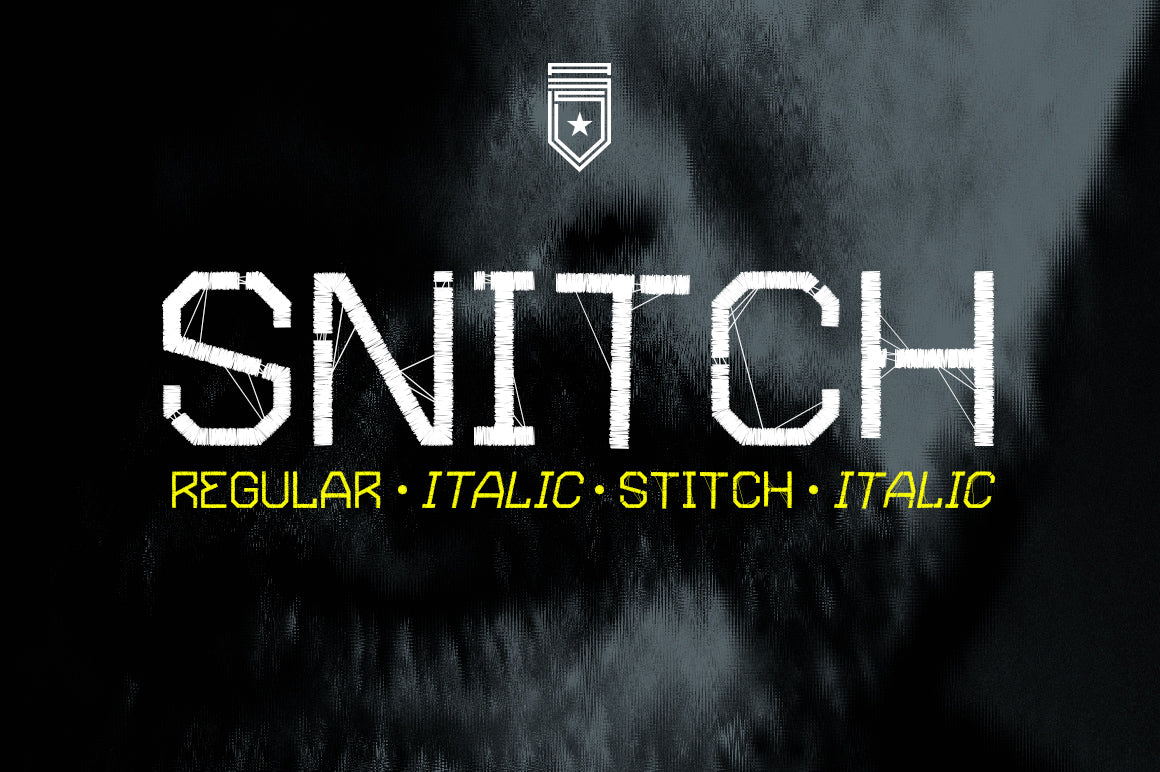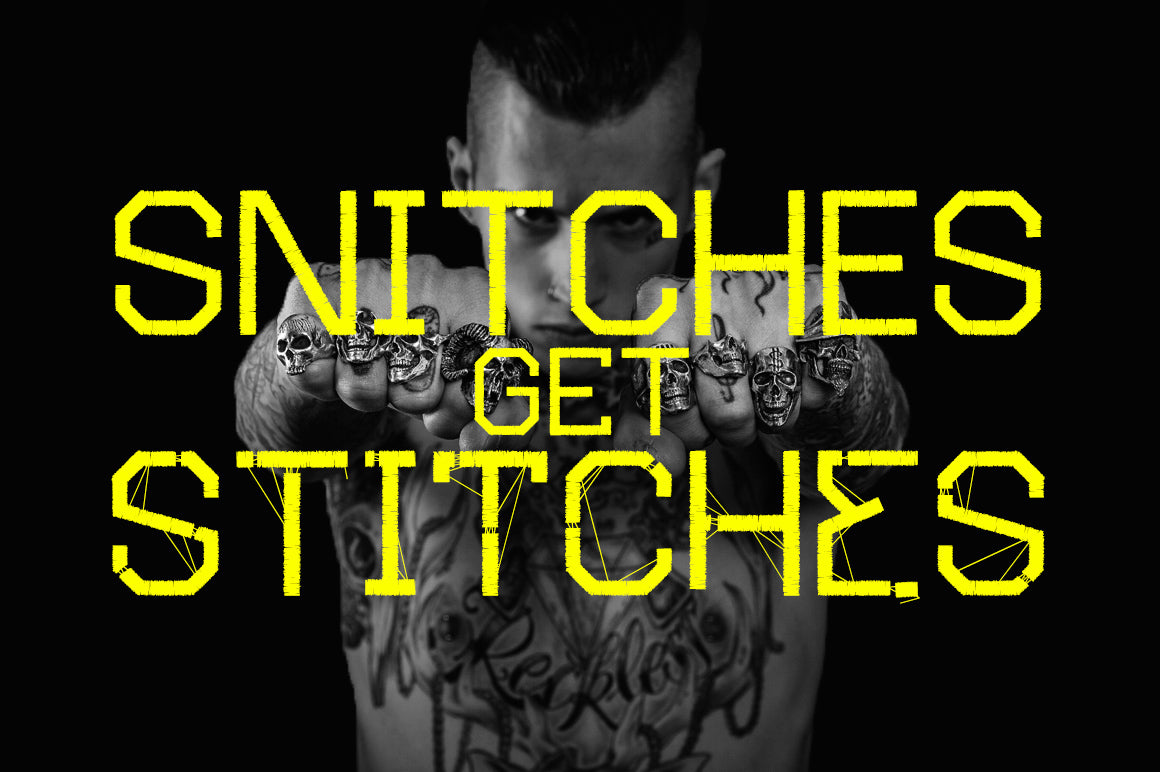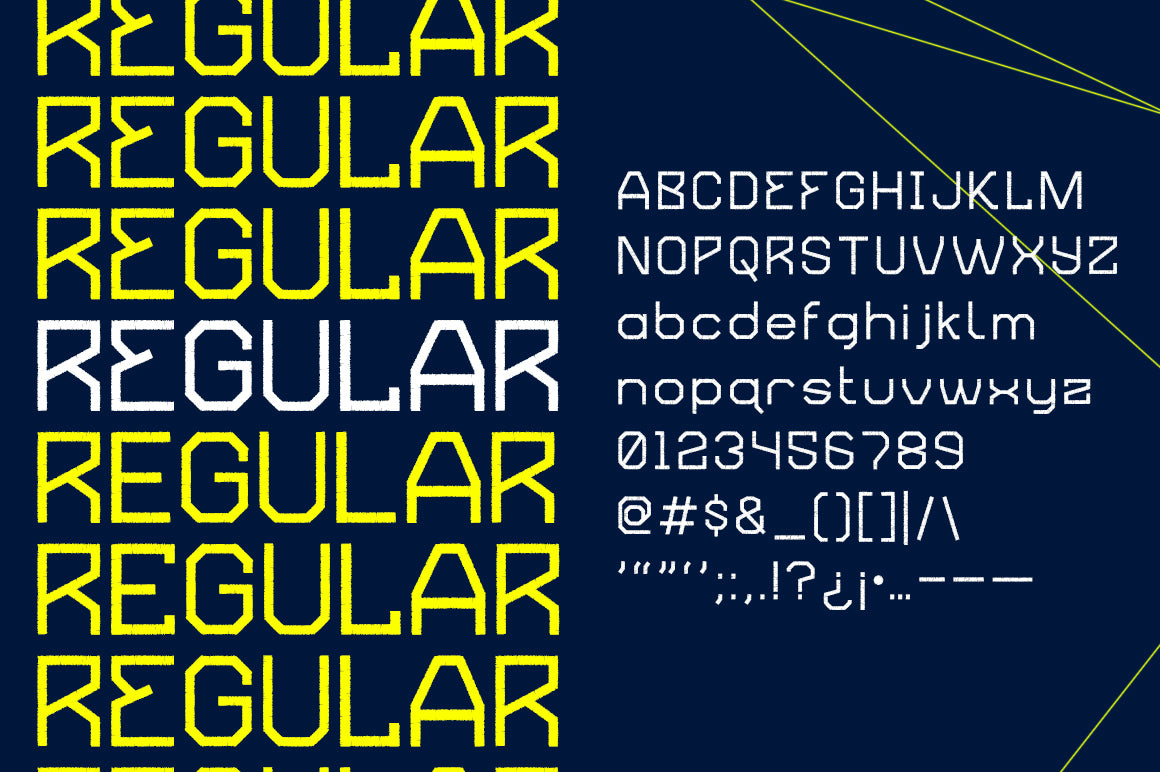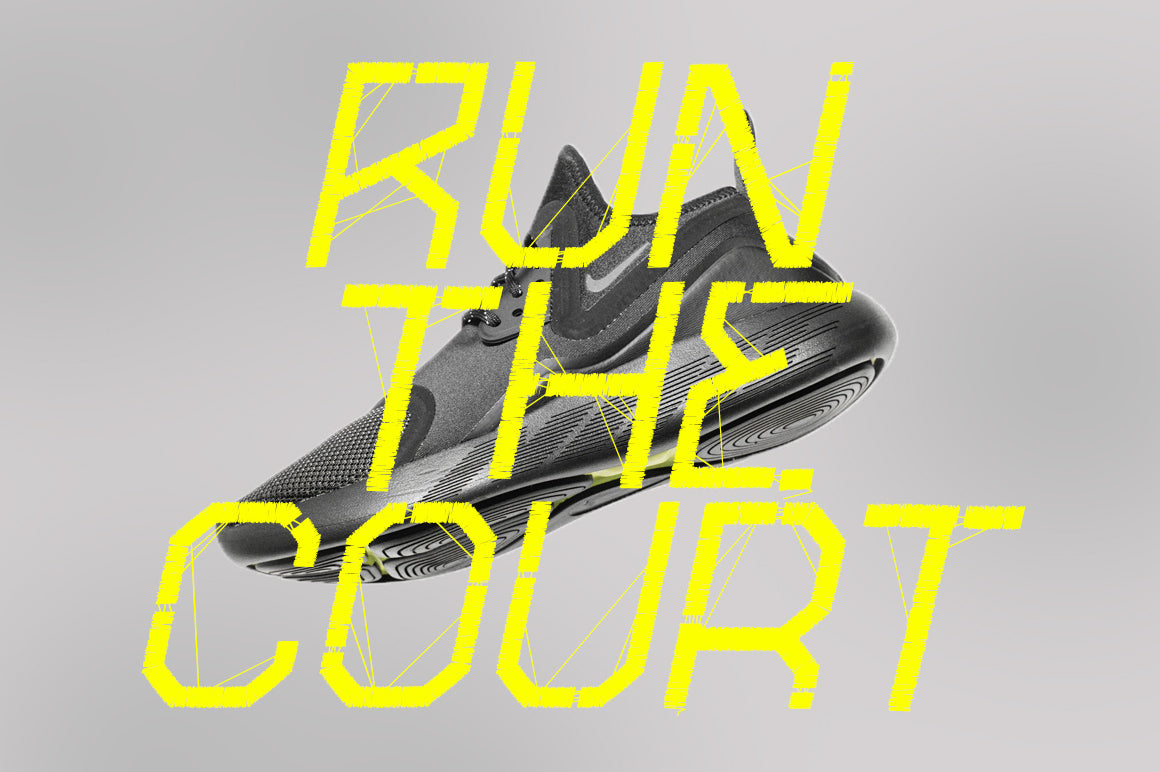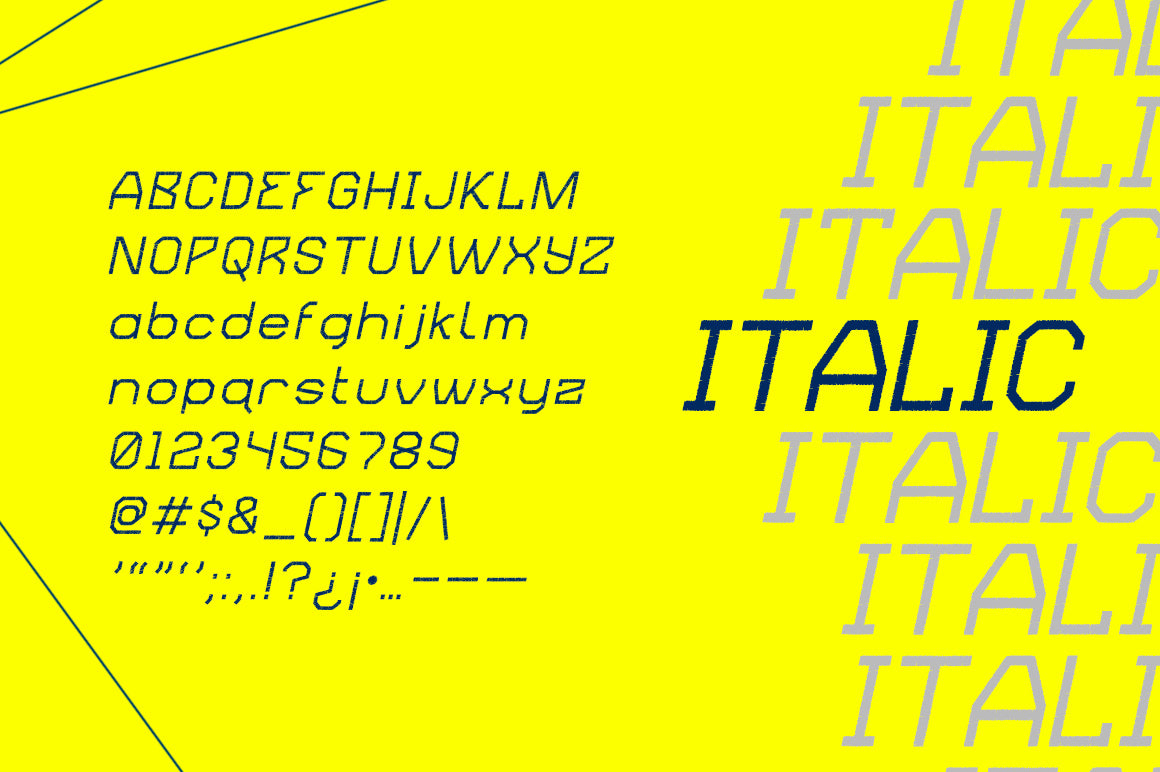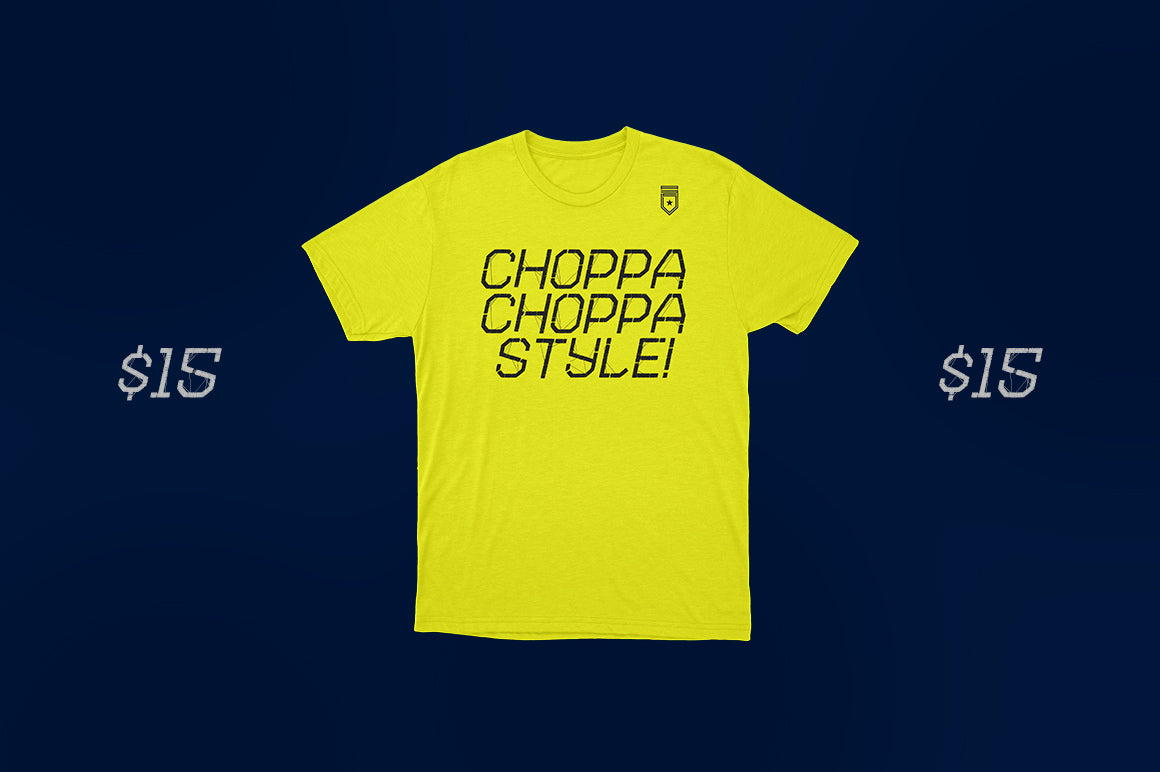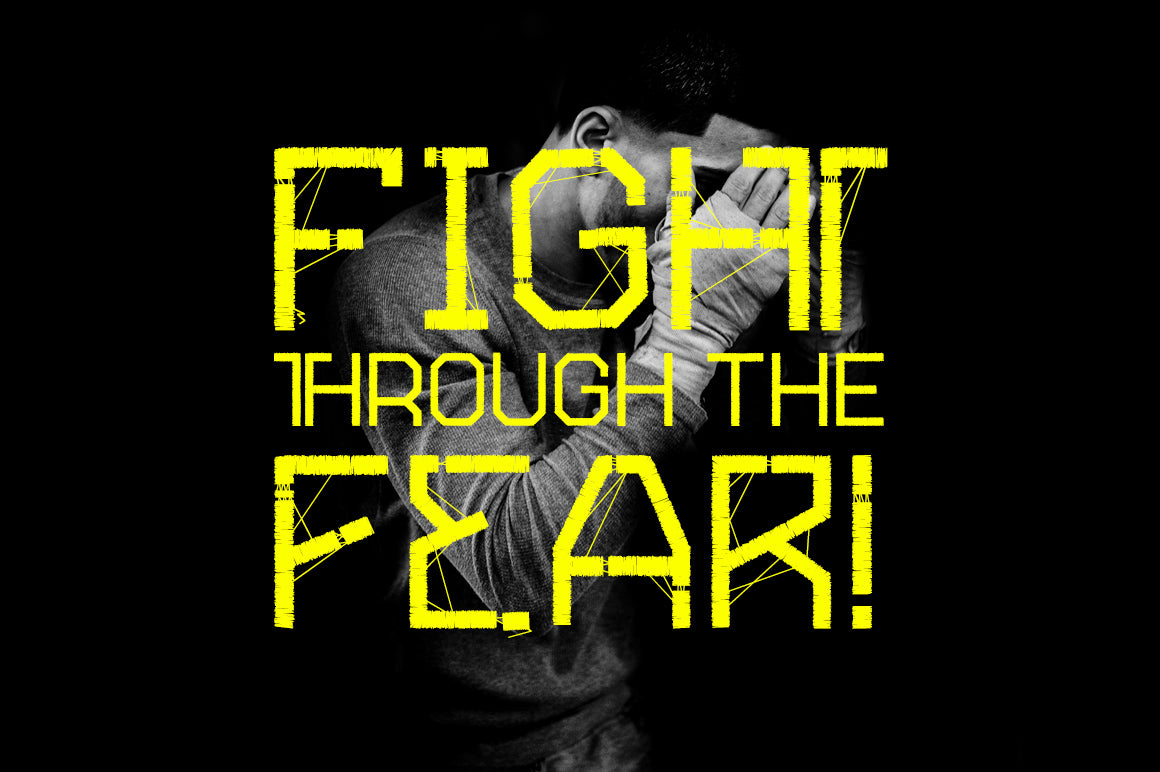
Snitch Typeface
Introducing Snitch! A stitched, embroidery-style display font with an edgy personality. Snitch is perfect for sports, apparel, lifestyle and fashion projects from advertising to product design. Snitch is designed for heavy-lifting headlines and display work, not your usual copy.
Snitch is inspired by type treatments that Nike, Adidas and other leading apparel companies in the extreme sports space would utilize in their ads or products. With alternate glyphs you can mix & match to customize your own looks, especially with the Stitch/Stitch Italic weights.
Features Include:
- 4 Styles (2 Regular and 2 italics)
- Alternate Glyphs (Mix things up and Customize)
- Lowercase (just in case you wanted it)
- A-Z, a-z, 0-9, basic punctuation